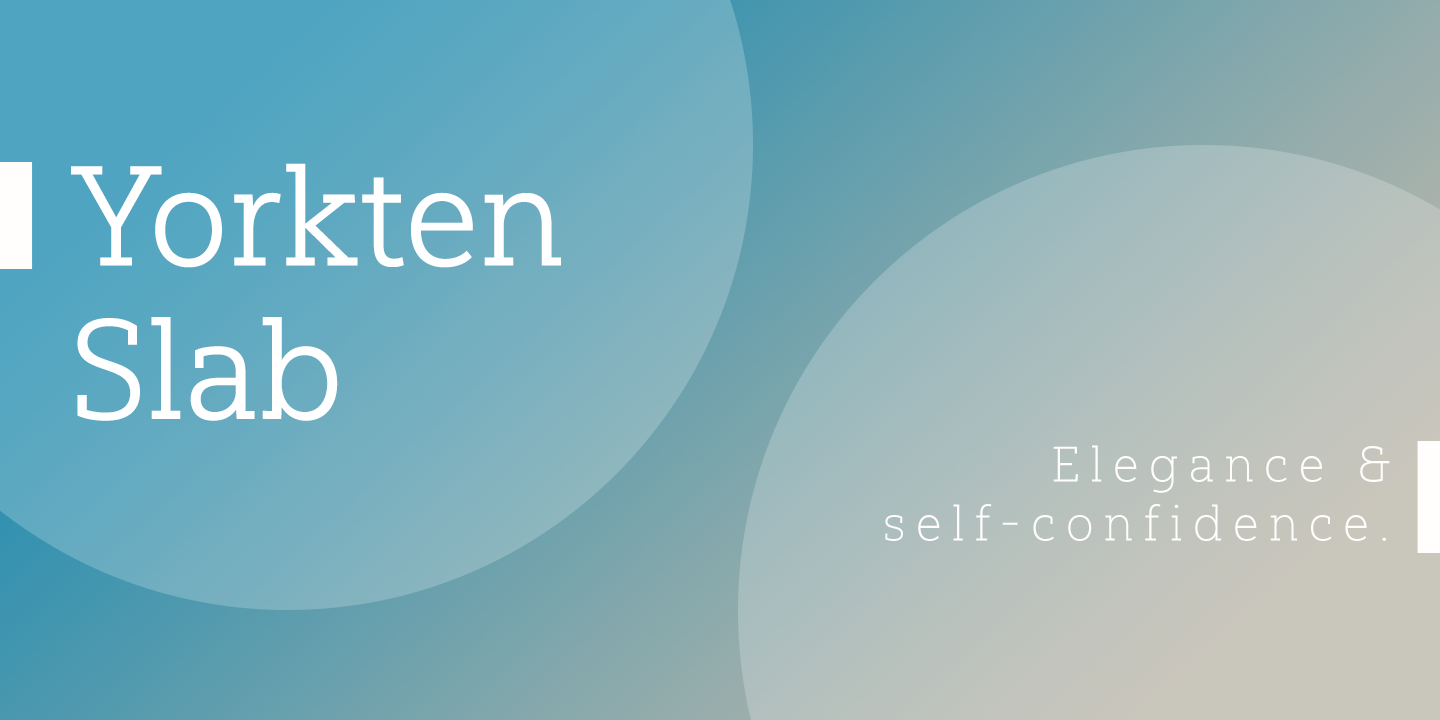
Yorkten Slab Font is ideal for robust industrial branding, solid construction communications, heavyweight publishing projects, strong corporate identity, substantial marketing campaigns, bold headline design, confident editorial layouts, powerful advertising materials, commanding signage systems, and authoritative business applications. This substantial typeface creates authentic strength atmosphere in both industrial print and digital corporate platforms.
What makes Yorkten Slab Font exciting is its commanding presence that perfectly combines slab serif authority with contemporary industrial sophistication and structural reliability. The font features robust letterforms with substantial proportions and industrial character details that evoke steel construction, solid foundations, and engineering excellence. Its powerful design establishes an atmosphere of corporate strength and industrial confidence that resonates with business audiences seeking authentic authority and substantial brand presence.
Yorkten Slab Font family includes industrial variations: Light, Regular, Medium, Bold, and Heavy versions, each with structural alternates and industrial character sets. Each variant maintains the font's substantial personality while providing designers with powerful options for creating authoritative typography hierarchies and industrial communication systems.
This exceptional industrial typeface brings authentic corporate credibility to projects requiring substantial presentation. Whether you're designing construction brands, industrial marketing, or corporate identity materials, Yorkten Slab Font Free Download delivers outstanding strength and industrial sophistication. The font's robust proportions and structural details ensure memorable authoritative impact across various corporate applications.
Industrial companies and construction firms recognize how Yorkten Slab Font perfectly embodies the principles of structural integrity and corporate authority. Its substantial foundation combined with industrial reliability makes it essential for construction and corporate design projects. Download today and strengthen your designs with this exceptionally robust industrial typography.